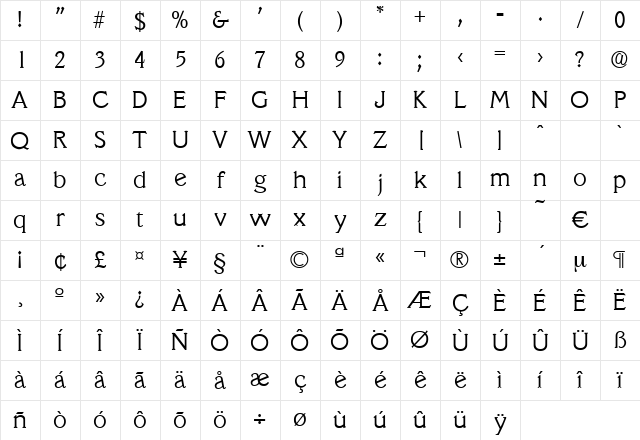
Veracruz-Light Regular
Design Context for Veracruz-Light
Veracruz-Light is a composed and adaptable typeface that performs quietly and consistently across a wide range of design contexts. Its slender proportions lend an understated elegance to any composition.
Pro Tip: Use Veracruz-Light in both headline and body roles to test its range before committing to a single application.